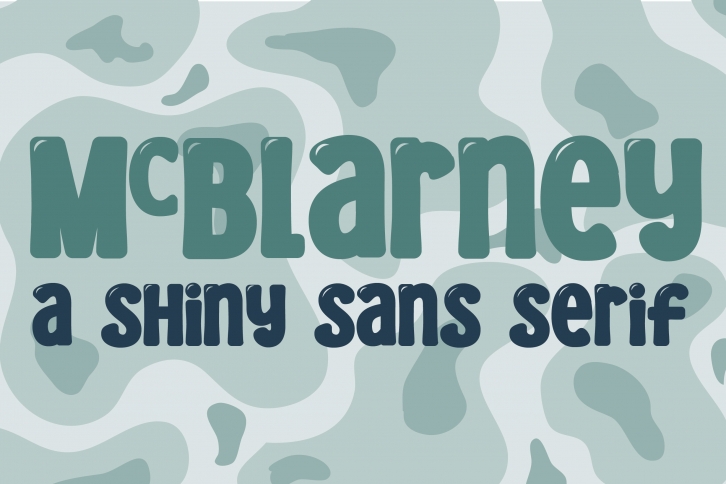
McBlarney is a cool display font that has no descenders in the baseline. It includes a shamrock-decorated version for your products that need a lucky vibe.